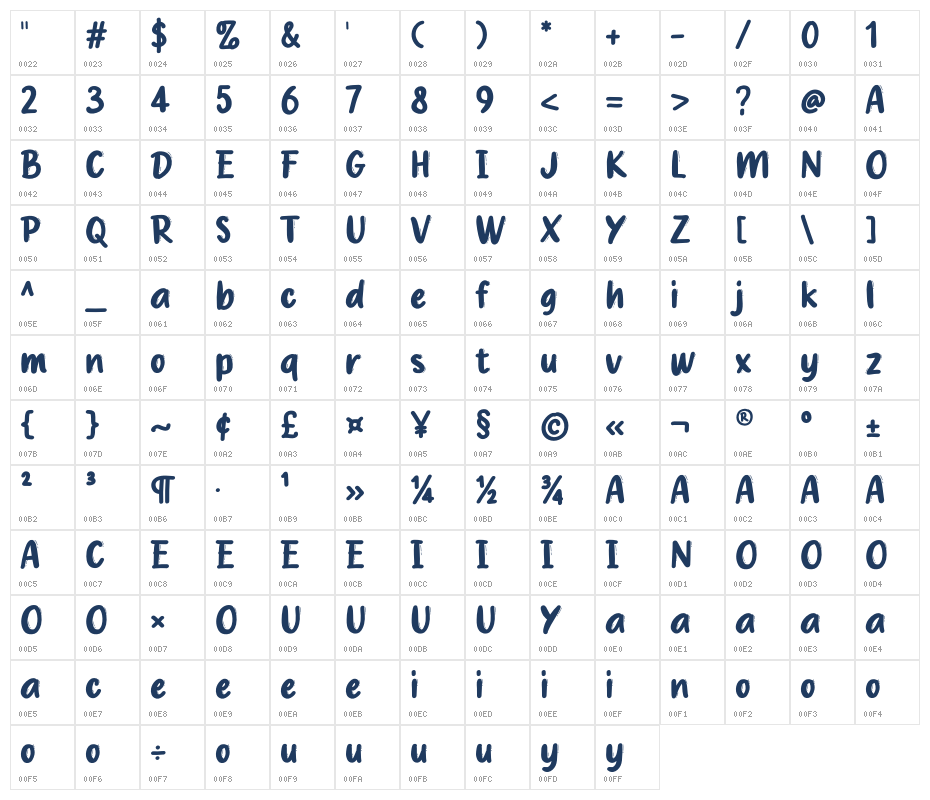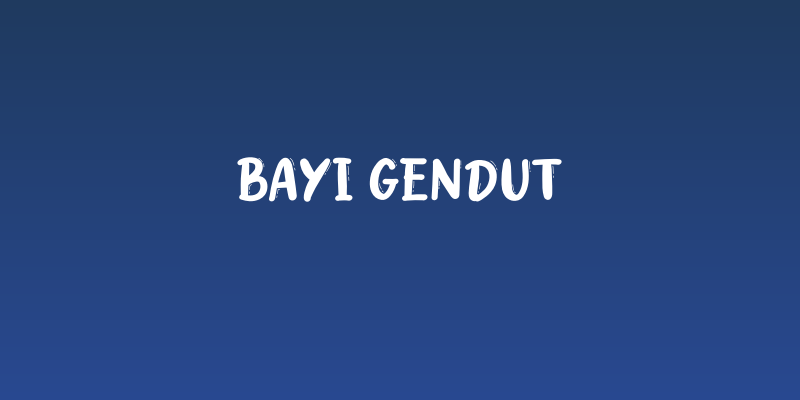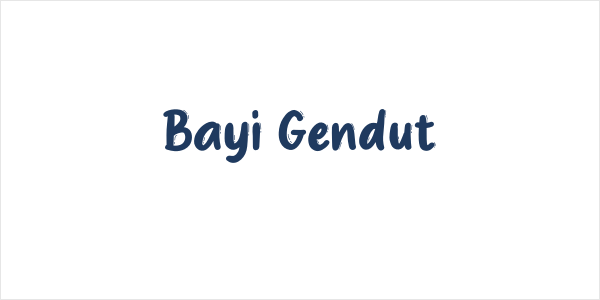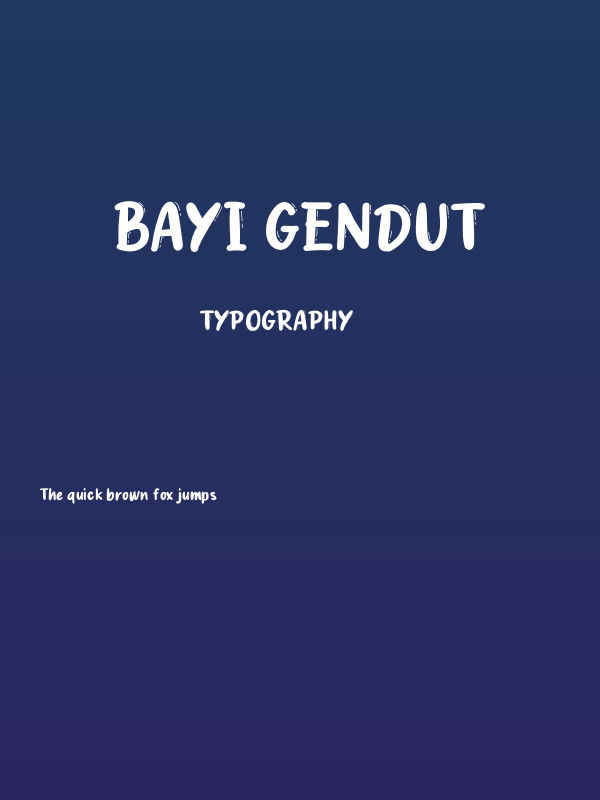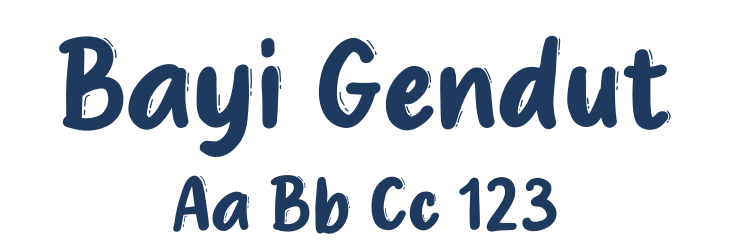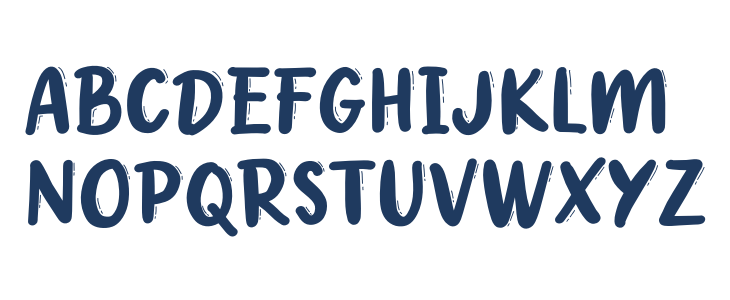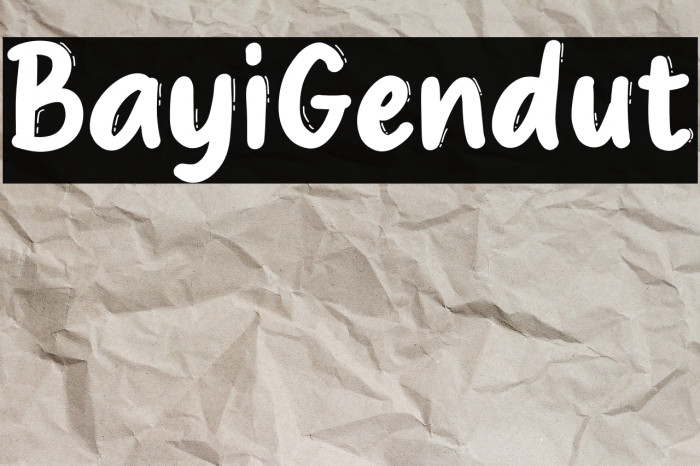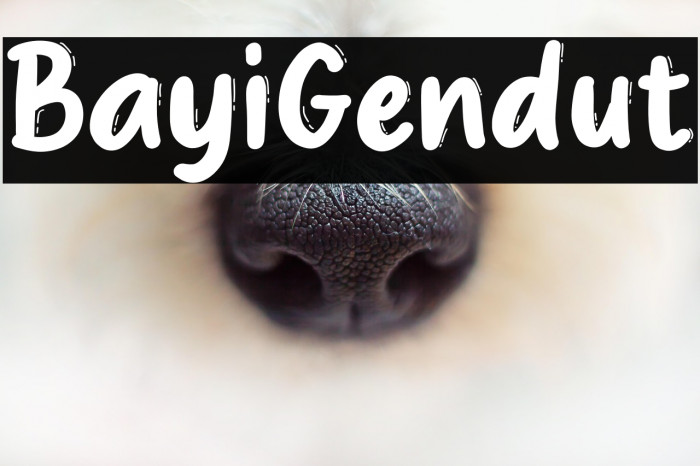
Bayi Gendut Font
Bayi Gendut Description
A playful, handwritten style font with bold, rounded characters and a casual appearance.
Hello Good Studio
| Overall Style | Casual, Playful, Handwritten |
| Use Case | Headlines, Logos, Posters, Children's materials |